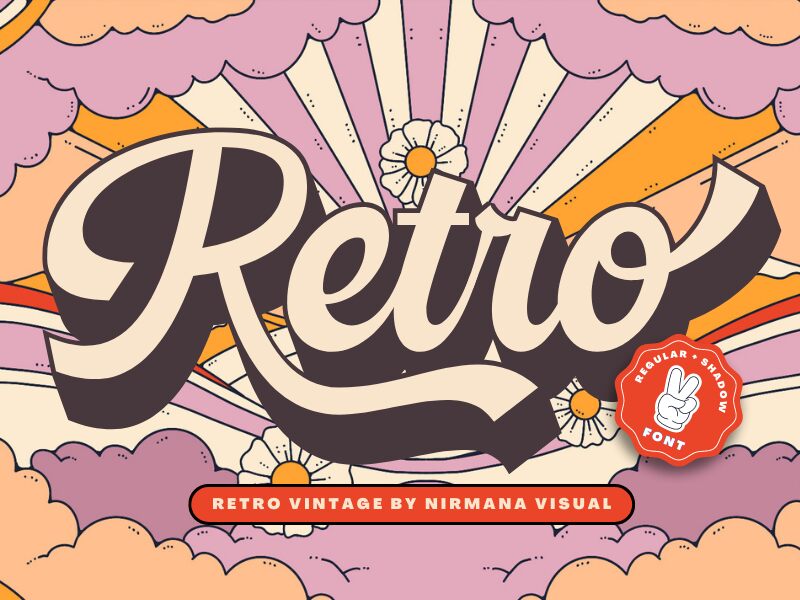
Retro Vintage Shadow
Retro Vintage Shadow is an extra-bold retro vintage script font designed by Nirmana Visual. With its bold and eye-catching style, this font is perfect for a variety of creative projects.
Use it to add a touch of nostalgia and vintage charm to your branding, packaging, or poster designs. Its thick strokes and shadow effects make it ideal for creating bold headlines and titles that demand attention. Whether you're designing a retro-inspired logo or reviving the spirit of the past in your typography, Retro Vintage Shadow will bring a timeless appeal to your work.